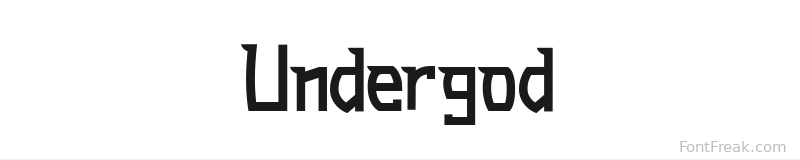
Undergod
Undergod is a striking display typeface designed by Kong Font, released in 2019 as freeware. This font falls into the category of decorative typefaces, characterized by its bold, impactful appearance that commands attention. The visual style of Undergod features a unique blend of sharp angles and rounded edges, creating a sense of modernity coupled with a hint of whimsy. The stroke weight is thick and consistent, offering a strong presence, while the overall contrast and spacing contribute to its legibility, making it suitable for various design contexts.
Undergod is versatile and can be effectively utilized in a range of creative projects. It shines in areas such as movie posters, where its boldness can capture the essence of cinematic themes. Additionally, it works well for branding purposes, making it an excellent choice for logos and promotional materials for small businesses looking to stand out. The font can add a playful touch to restaurant menus, especially in casual dining settings, where it can evoke a relaxed atmosphere. Moreover, it is ideal for event flyers and advertising in the entertainment industry, where grabbing attention is paramount.
The target audience for Undergod includes graphic designers, small business owners, and content creators seeking a distinctive typeface that enhances their projects. Its free availability makes it accessible to a broad range of users who want to elevate their design work without incurring additional costs.
What sets the Undergod font apart is its ability to blend artistic flair with practicality, making it a perfect choice for those looking to make a memorable impression. With the Undergod font free download, users can easily incorporate this unique typeface into their creative endeavors, ensuring their designs are both eye-catching and impactful.